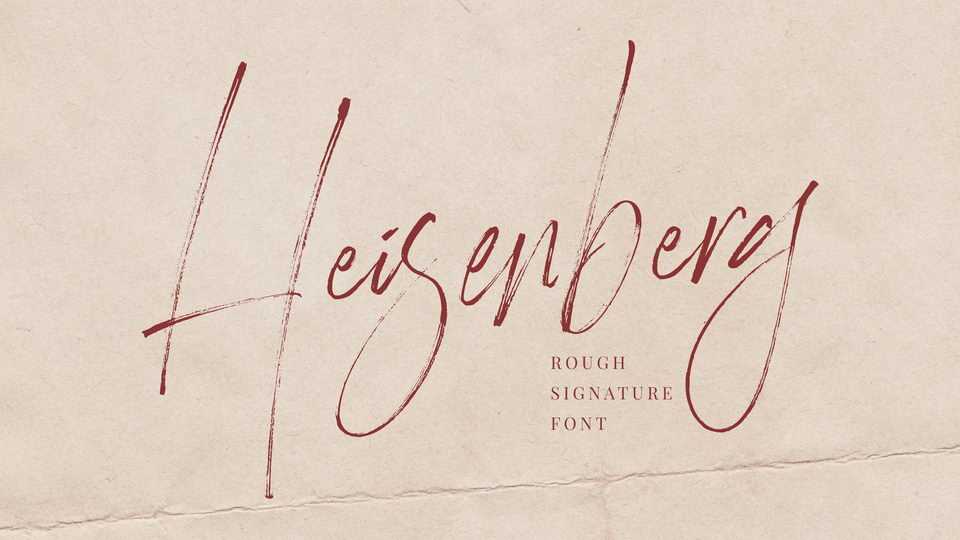
Download Heisenberg font, a rough signature script. Heisenberg is a font with wild, natural expressions, yet giving you an elegant impression. This font is handmade, with a spontaneous and free flow.
Designer: Letteralle Studio